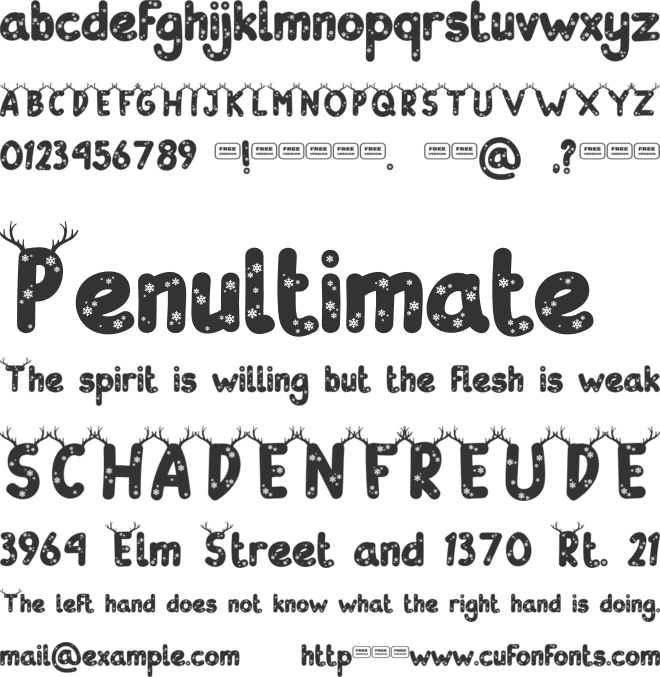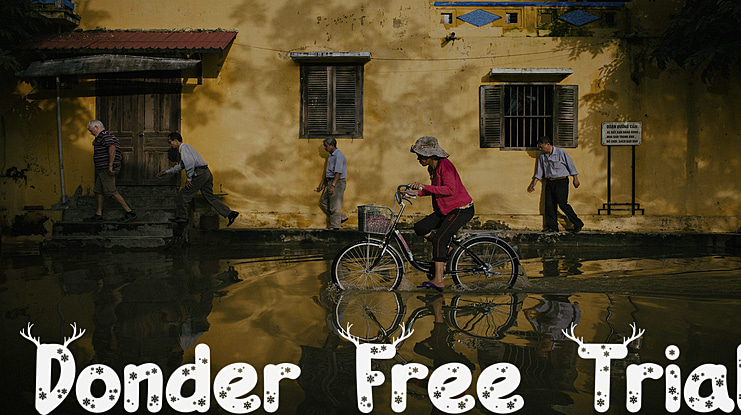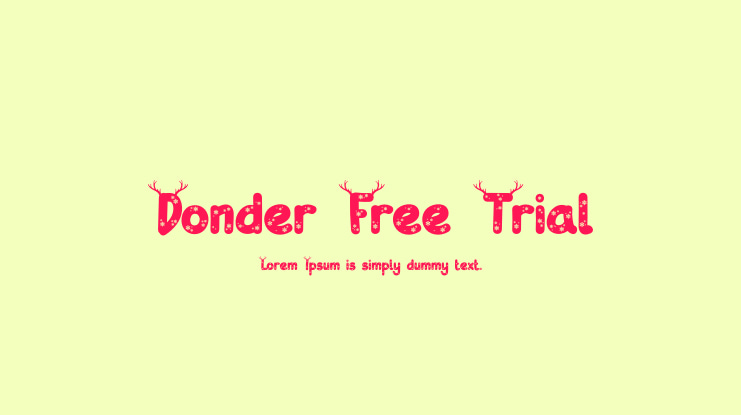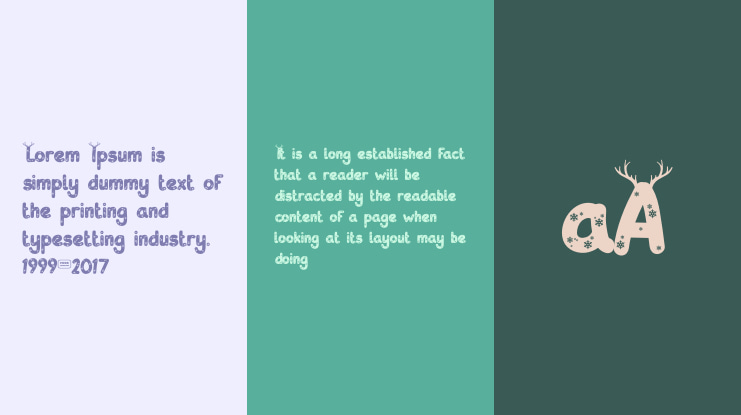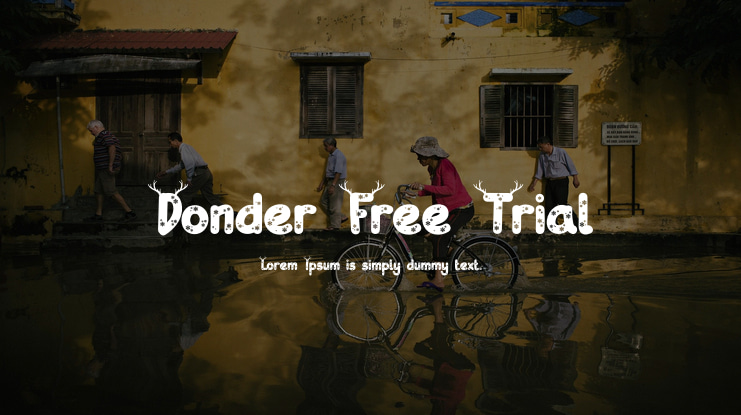
Donder Free Trial Font
Donder is a modern and casual handwritten font. It is ideal for your winter designs as well as for any design that may need a trendy touch. It has ice ornament inside every letter, also has antler at top of each letter.